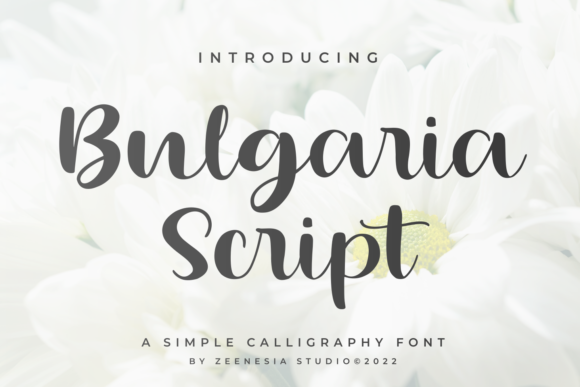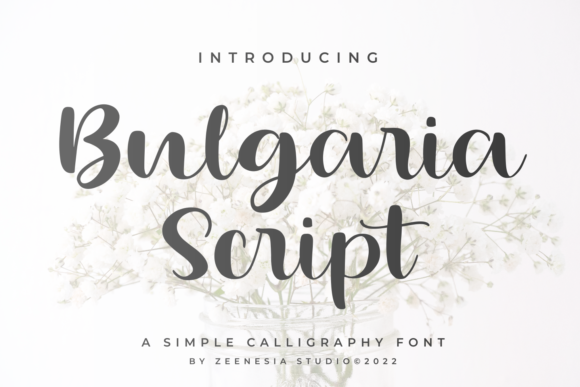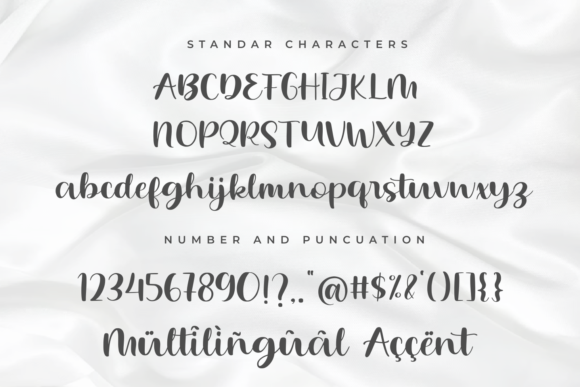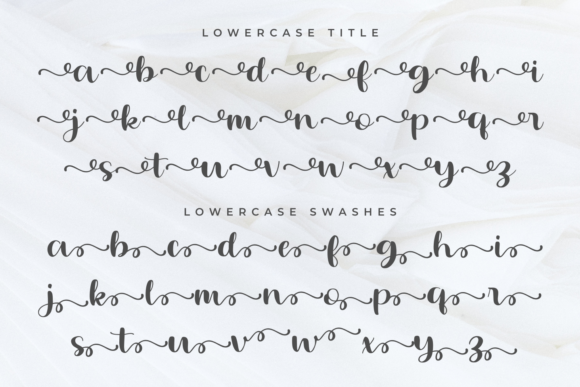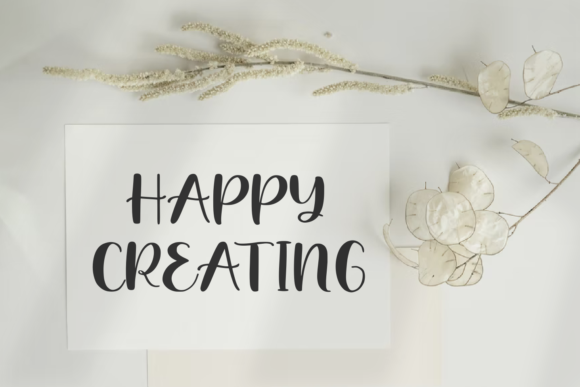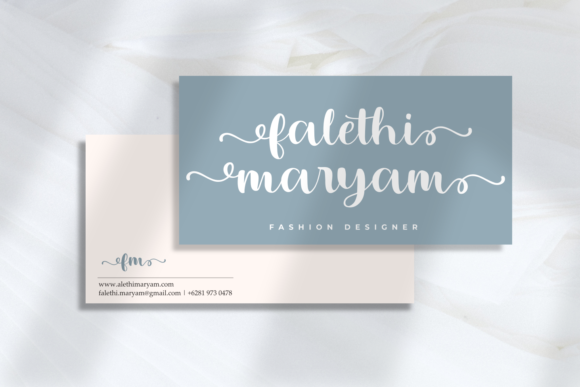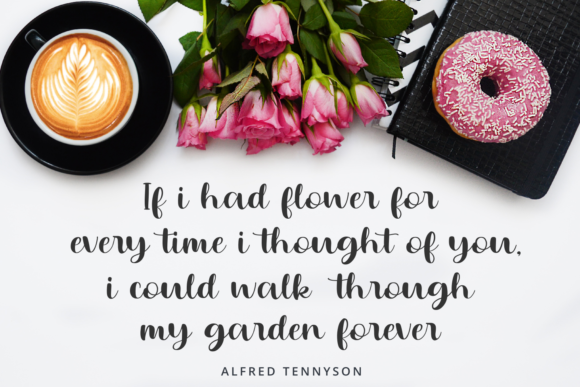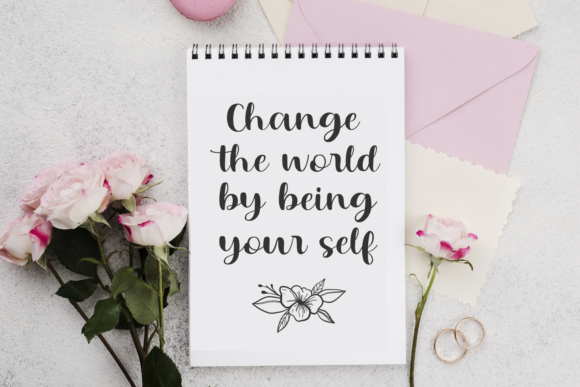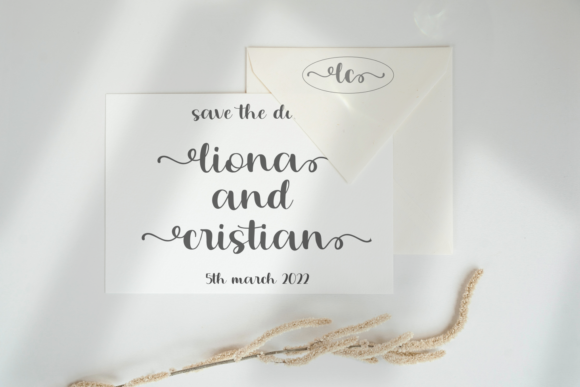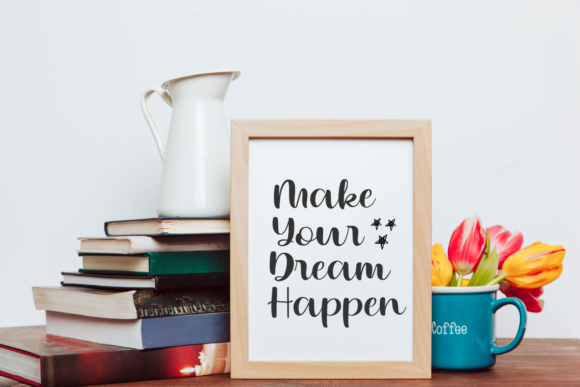
Bulgaria Font
About Bulgaria Font
Bulgaria is a beautiful and light handwritten font that exudes a sense of beauty and elegance. Its unique design makes it a versatile choice for a variety of creative projects. Let’s revise this text into a SEO-friendly 400-word version:
Bulgaria is a beautiful and light handwritten font that stands out with its unique design. Crafted with meticulous attention to detail, Bulgaria is designed to deliver the expected outcomes, making it a valuable addition to any font library. Whether you’re working on a branding project, designing a logo, or creating a website, Bulgaria can add a touch of elegance and modernity to your creations.
One of the key features of Bulgaria is its light and beautiful design. Unlike traditional fonts, Bulgaria is designed with a unique handwritten style that gives it a unique character. This light and beautiful design not only makes Bulgaria stand out but also adds a personal touch to your designs, making them more engaging and appealing to the audience.
Bulgaria is more than just a stylish script font. It’s a versatile design tool that can enhance the aesthetic appeal of your projects. Its elegant and modern look makes it suitable for a wide range of applications, from logos and branding to invitations, stationery, wedding designs, and more. The versatility of Bulgaria makes it a valuable addition to any designer’s toolkit.
In addition to its aesthetic appeal, Bulgaria also offers practical benefits. Its clear and legible design makes it suitable for both print and digital mediums. Whether you’re designing a business card or creating a website, Bulgaria ensures that your text is always easy to read and understand.
Bulgaria is not just a font; it’s a design asset. Its potential to enhance any creation makes it a valuable addition to any designer’s toolkit. With Bulgaria, you can add a touch of elegance and sophistication to your designs, making them more appealing and engaging.
In conclusion, Bulgaria is a beautiful and light handwritten font that can enhance the beauty of any design. Its elegant and modern look, combined with its versatility and high readability, makes it a valuable addition to any font library. Whether you’re a professional designer or a hobbyist, Bulgaria is a font that can help you create stunning and memorable designs. So, if you’re looking for a font that can add a personal touch to your designs, look no further than Bulgaria.